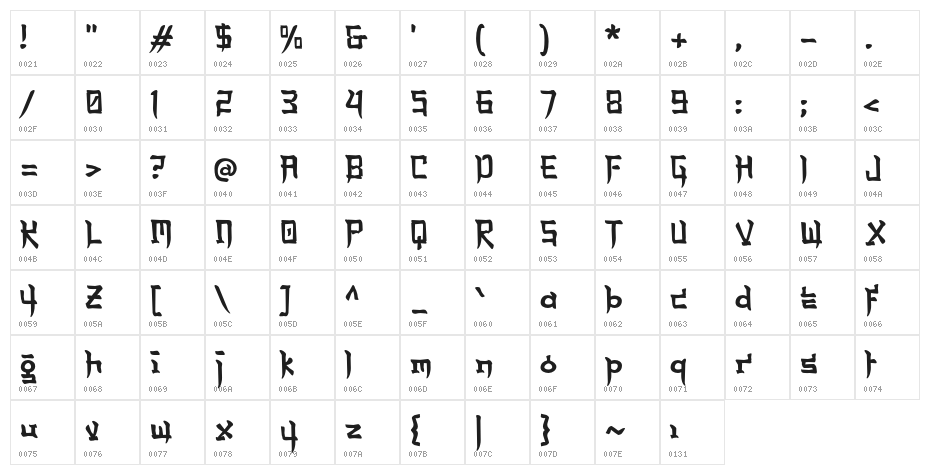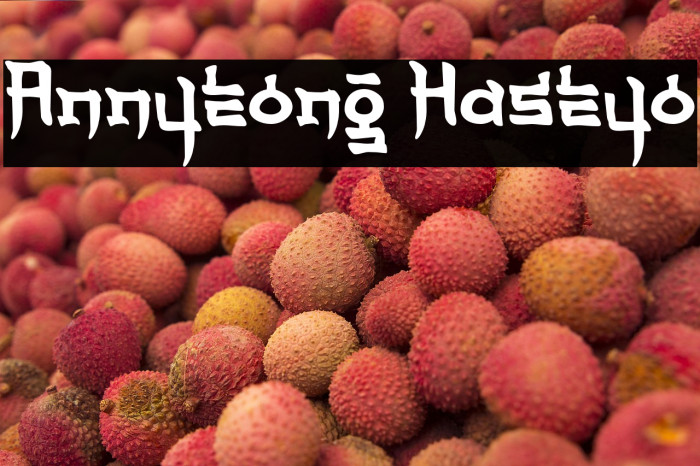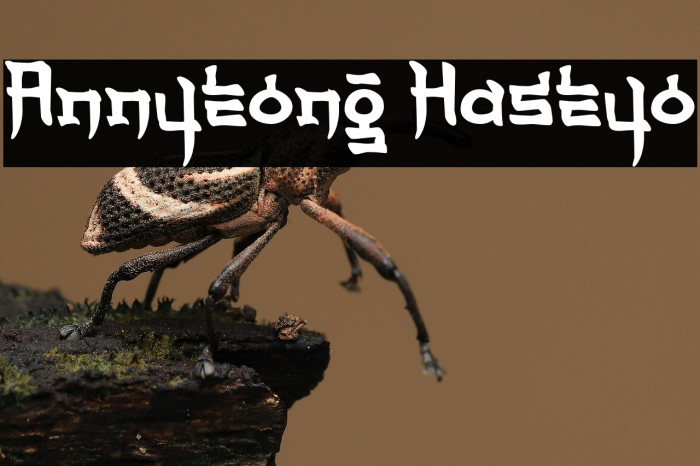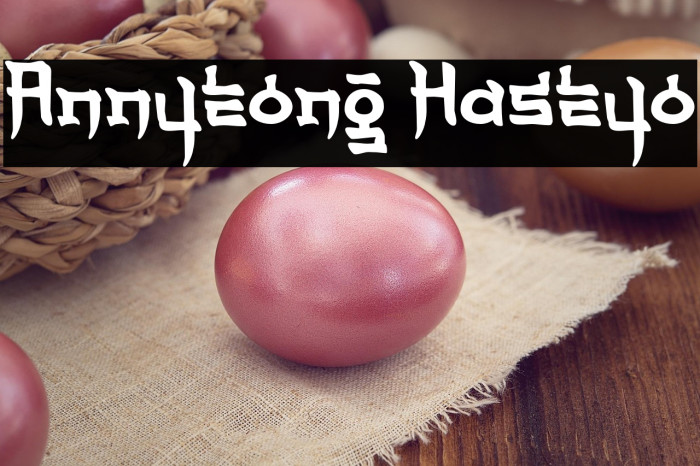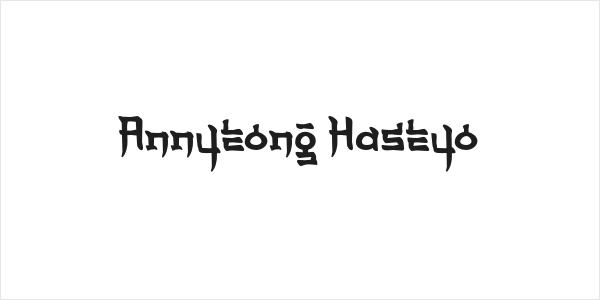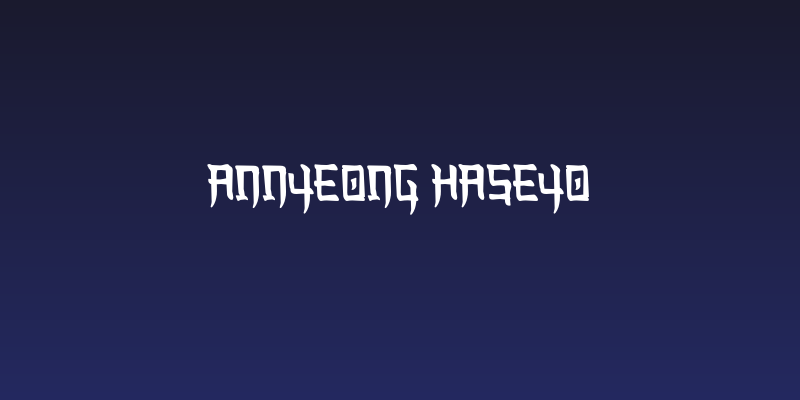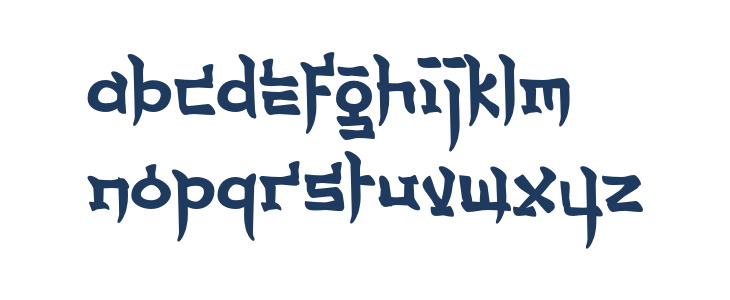
Annyeong Haseyo Font
Annyeong Haseyo Description
This font features a bold and striking design with a distinctly tribal and ancient aesthetic. The characters are crafted with sharp, angular lines and a slightly irregular form, giving them a hand-carved appearance. The uppercase letters are particularly bold, with a strong presence that commands attention. The lowercase letters maintain the same angular style, ensuring consistency throughout the typeface. Numbers and special characters are designed to match the overall theme, with unique shapes that enhance the font's distinctive look. This font is ideal for projects that require a bold, impactful statement with a touch of historical or cultural flair.